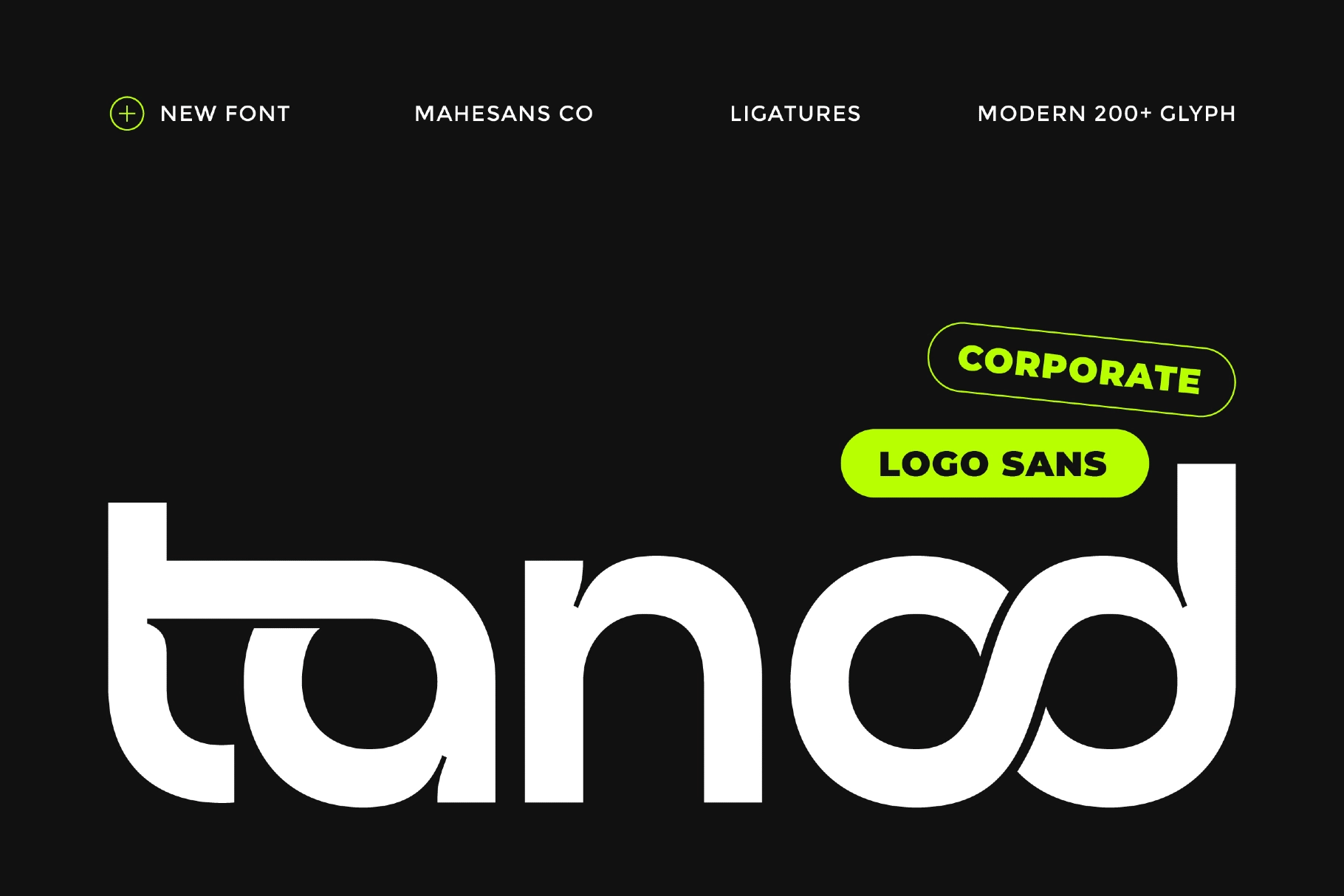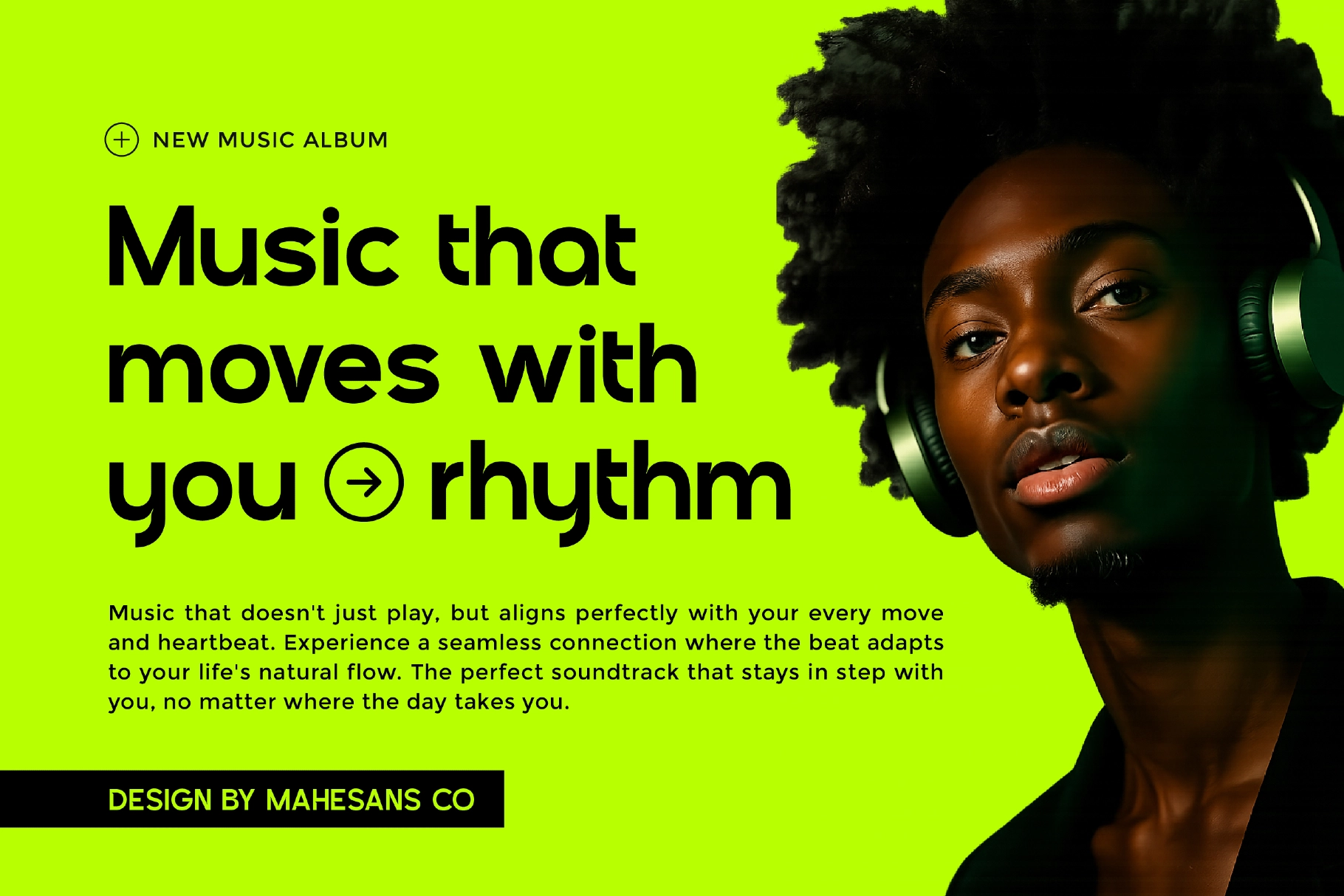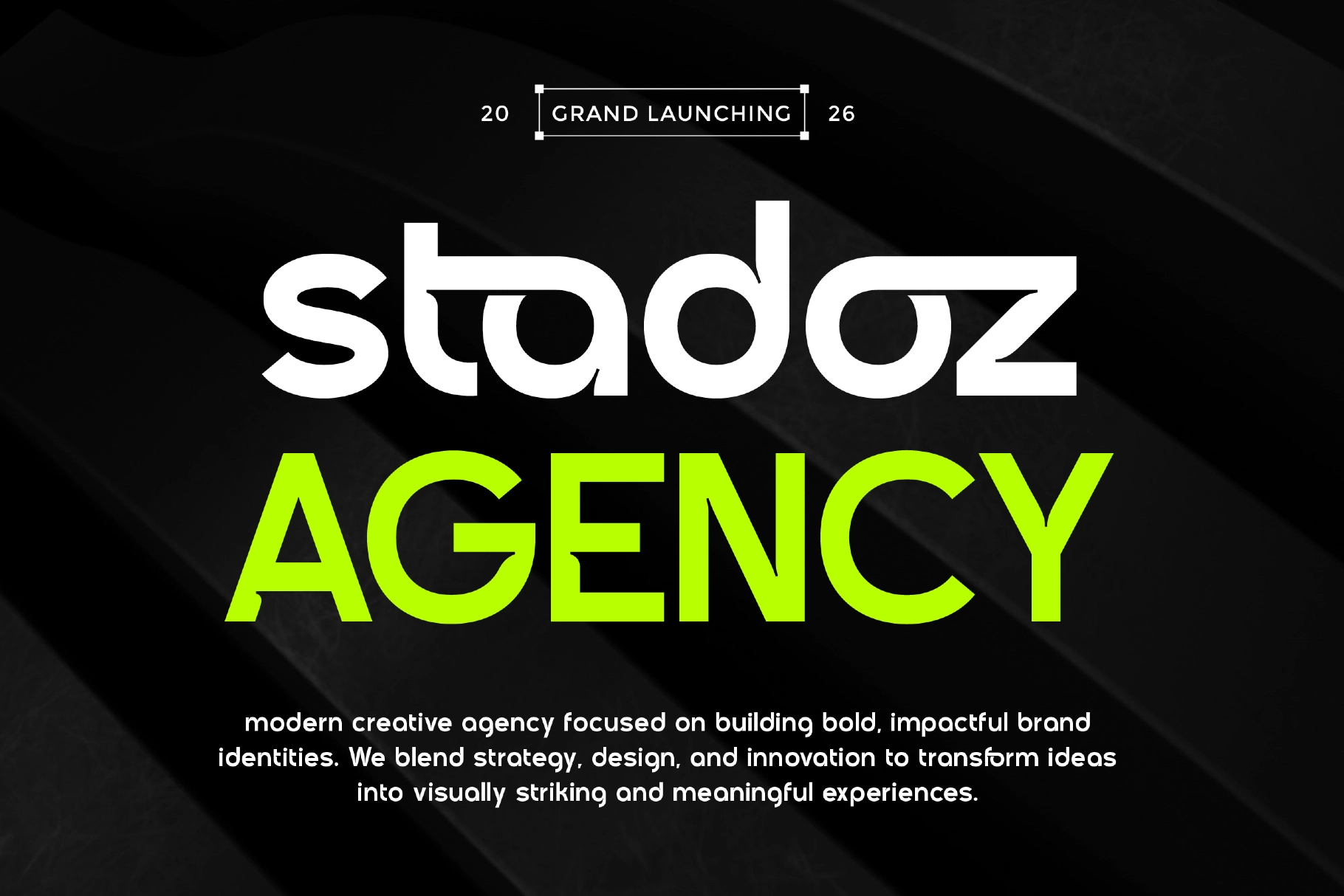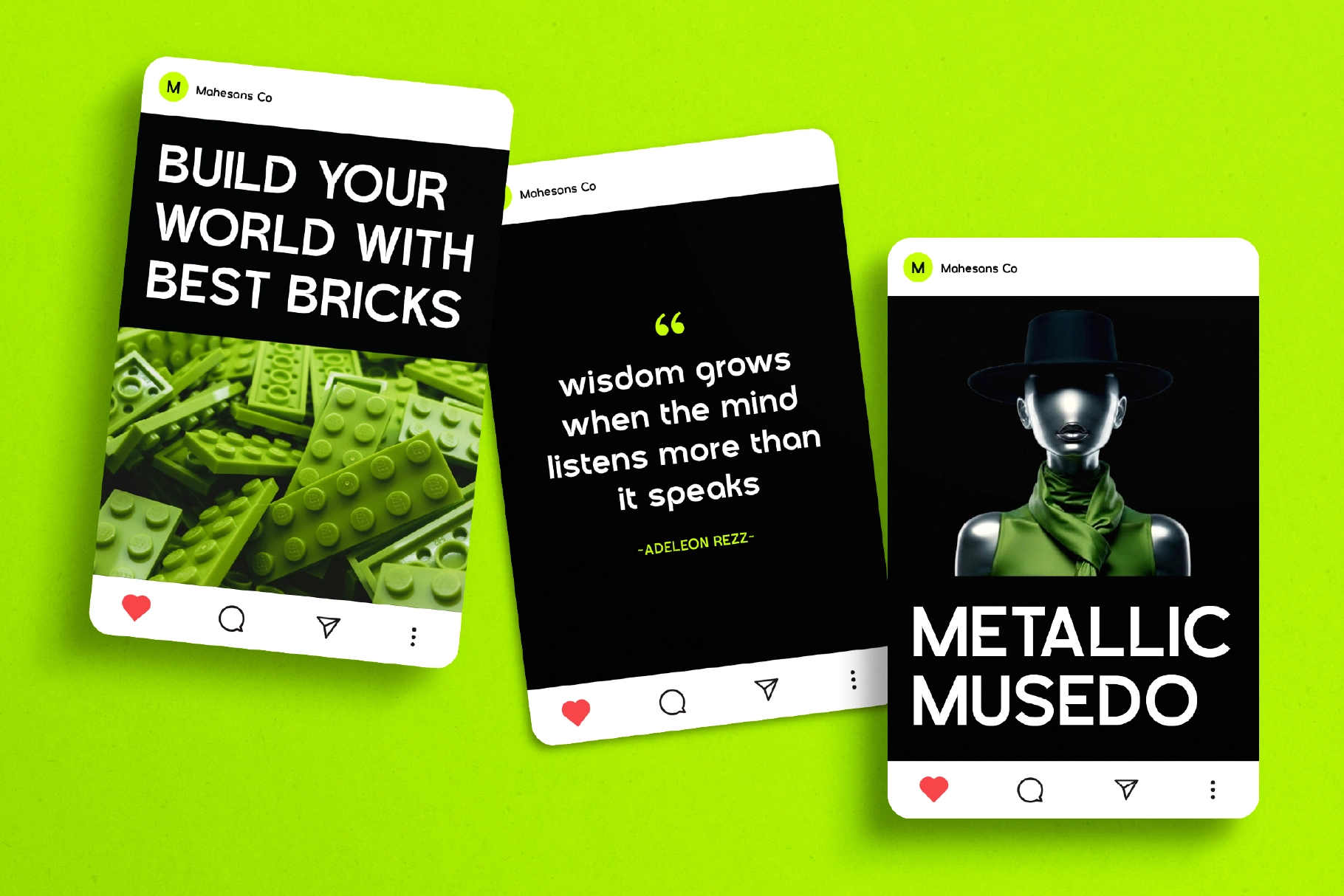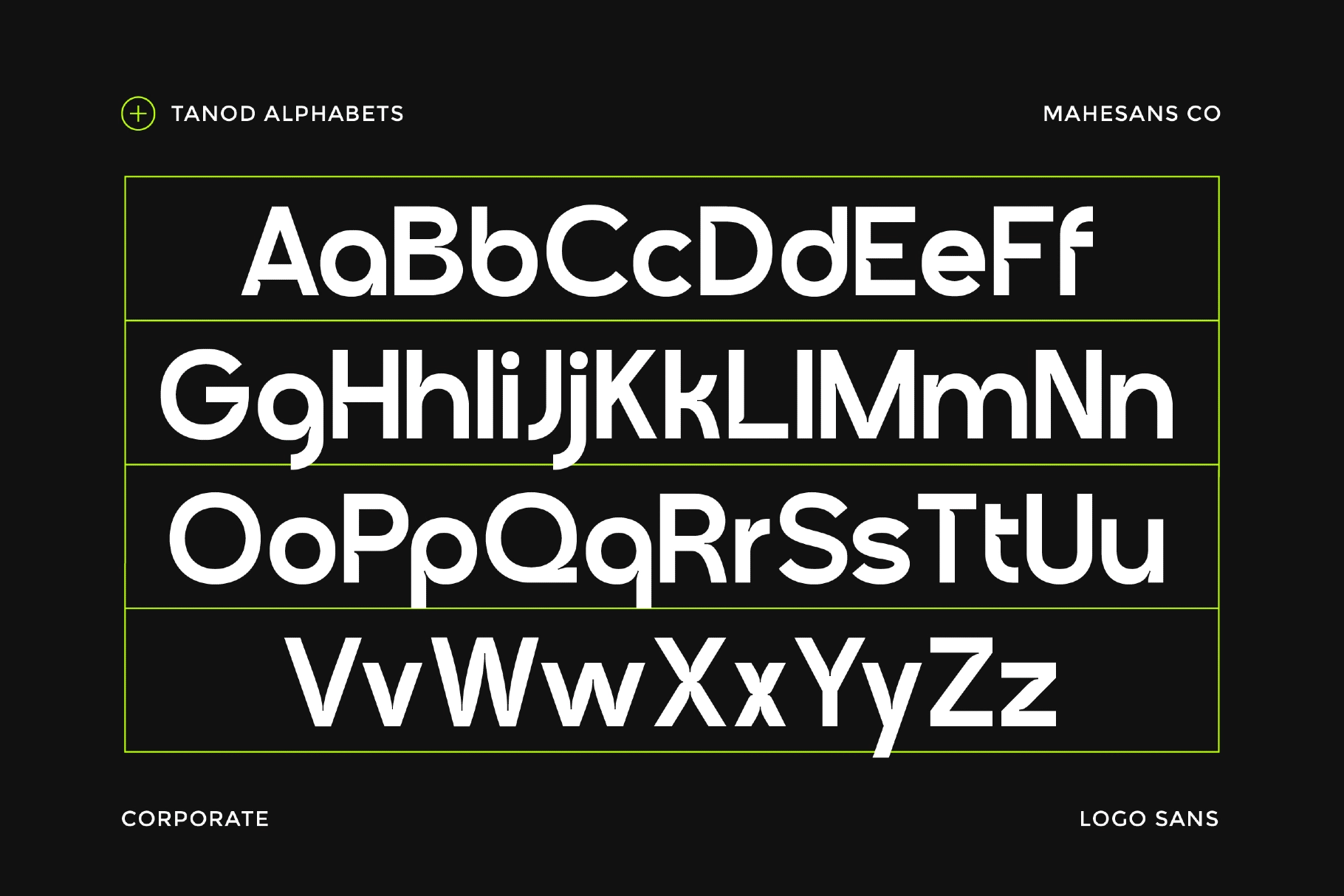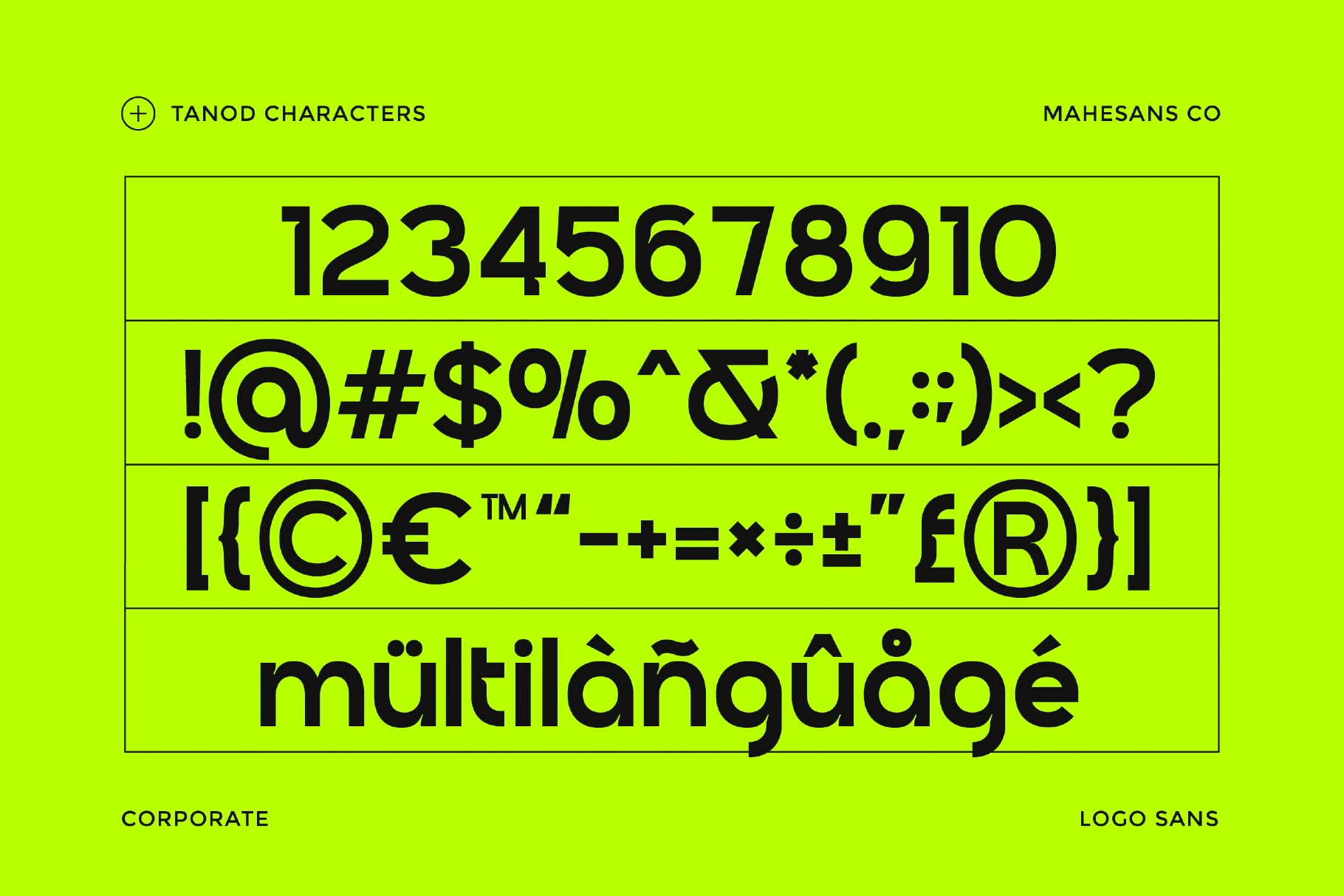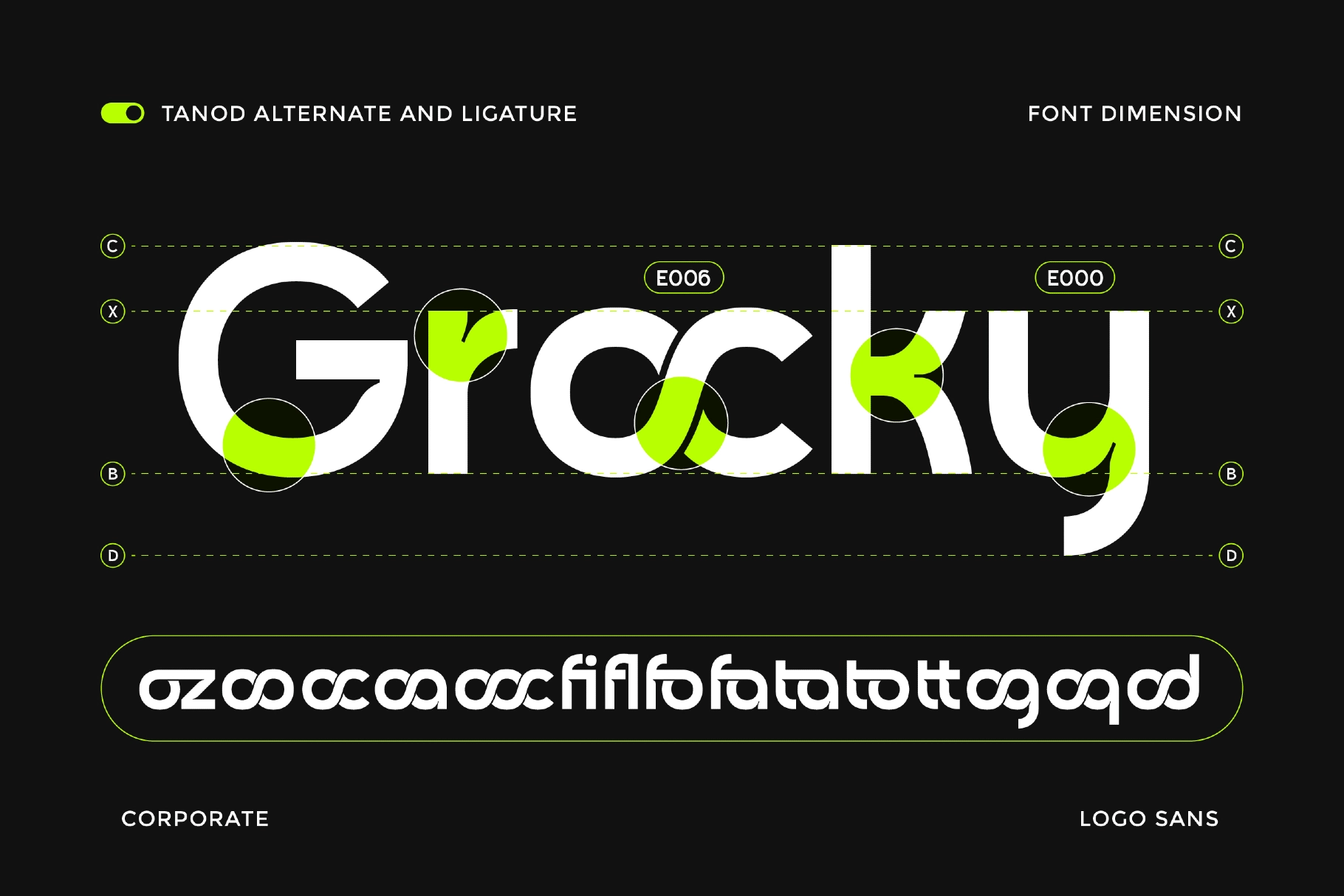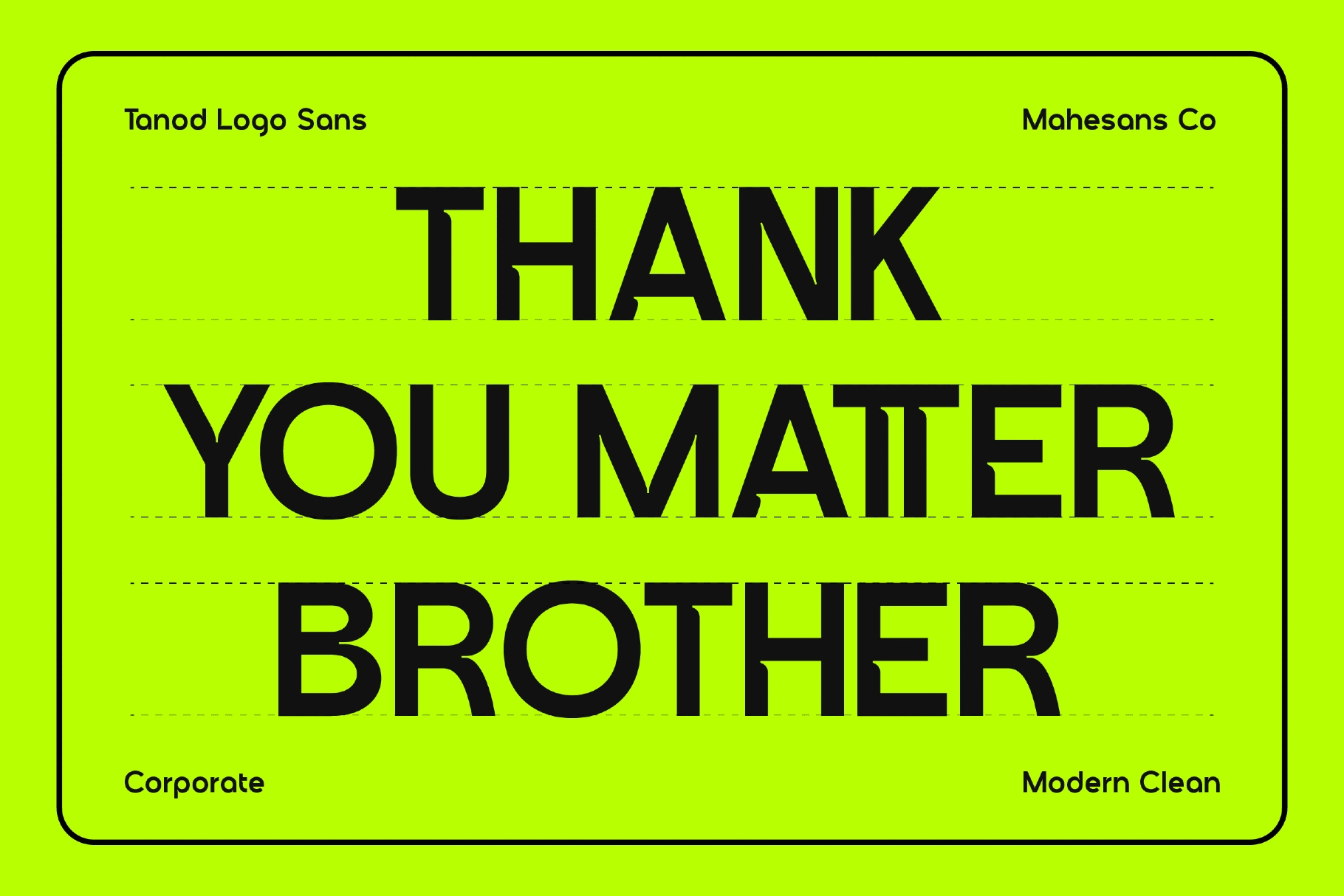
Tanod – Modern Corporate Logo Sans Font
Tanod
A corporate sans serif with sharp geometry, clean spacing, and a polished visual rhythm. The letterforms are bold and highly legible, with rounded cuts and subtle quirks that give brand work a clear identity without turning every word into a performance.
Tanod is made for logotypes, startup branding, agency identities, packaging, app headers, pitch decks, business cards, website hero text, signage, editorial titles, product labels, and more. Alternates and ligatures add custom-looking details where a plain sans would usually call it a day.
- Numerals & Punctuation
- Alternates & Ligatures
- Multilanguage